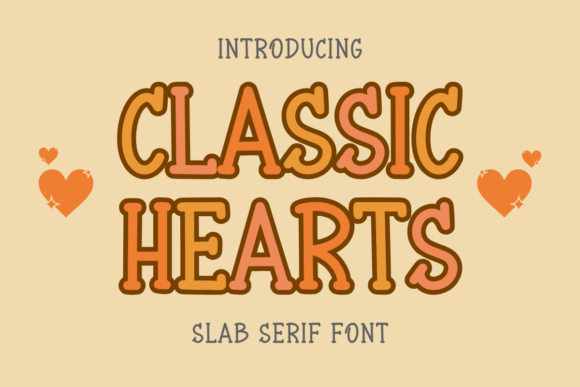
Classic Hearts: A Versatile Font for Everyday Creativity
If you're looking for a font that brings warmth and charm to your designs, Classic Hearts might just be the one. This cute, handwritten slab serif font is more than just a pretty face—it’s a practical tool for anyone who wants to add a personal touch to their projects. From greeting cards to digital presentations, Classic Hearts has a unique ability to make any text feel both friendly and professional.
What Makes Classic Hearts Stand Out?
Classic Hearts combines two appealing elements—handwritten style and slab serif structure. The result is a font that feels both playful and polished. Each character has subtle variations in stroke width and spacing, which gives it a natural, hand-drawn look while maintaining readability. It's perfect for those who want to avoid generic sans-serif fonts but still crave something approachable and easy on the eyes.
Handwritten Slab Serif: A Rare Combination
You don’t often see a blend of handwritten flair and slab serifs in one font. Slab serifs are usually reserved for bold, traditional typography, while handwritten fonts tend to lean casual or cursive. Classic Hearts bridges this gap beautifully, offering the best of both worlds. The blocky base with soft, rounded edges makes it ideal for use across multiple platforms without losing its character.
Real-World Use Cases for Classic Hearts
- Greeting Cards: Whether you're making birthday cards, thank-you notes, or holiday greetings, Classic Hearts adds a warm, heartfelt touch. Its design evokes sincerity and care, making it an excellent choice for anything meant to convey emotion.
- Invitations and Announcements: Wedding invitations, baby showers, or graduation announcements all benefit from a font that feels personal yet elegant. Classic Hearts can help set the tone for these special events without being too formal or too whimsical.
- Children’s Projects: Teachers and parents often seek fonts that are engaging for kids but still legible. Classic Hearts works well for classroom posters, storybooks, or even educational materials that need a gentle, inviting presence.
- Branding and Marketing: For businesses targeting a cozy or nostalgic audience, like boutique shops or wellness brands, this font can become part of the visual identity. It adds personality to logos, packaging, and promotional content.
- Digital Design and Social Media: In today’s fast-paced online world, standing out is key. Classic Hearts can give your social media posts, blog headers, or email newsletters a fresh and relatable vibe that resonates with audiences.
Examples of Creative Applications
Let’s say you’re designing a Mother’s Day card. You could pair Classic Hearts with floral illustrations and pastel colors to create a sweet, homemade feel. Or imagine using it for a product label at a local bakery. The font complements rustic aesthetics and handwritten menus, adding a sense of authenticity and charm.
Another scenario might involve creating a presentation for a creative team meeting. Instead of using standard fonts like Arial or Helvetica, switching to Classic Hearts can inject some personality into your slides. Just keep the amount of text limited to maintain clarity and let the font shine where it matters most.
Who Can Benefit from Using Classic Hearts?
This font isn’t just for designers or artists. Anyone who values creativity in their communication can find a place for it. Here are a few different user profiles who might appreciate Classic Hearts:
- Craft Enthusiasts: If you love DIY projects, scrapbooking, or handmade gifts, Classic Hearts is a go-to option. Its charm enhances any tactile project, especially when paired with vintage-style patterns or watercolor textures.
- Small Business Owners: Think about how you present your brand. A small café owner might use it for signage or menu boards to evoke a home-cooked meal vibe. Similarly, a boutique clothing store can use it for window displays to stand out from the competition.
- Teachers and Educators: Educational materials don’t always have to be boring. With Classic Hearts, teachers can design fun worksheets, classroom decorations, or interactive learning tools that grab students’ attention and spark interest.
- Event Planners: Invitations, signage, and programs for events like weddings, birthdays, or corporate retreats can all be elevated with this font. It conveys warmth and professionalism, striking the right balance for any occasion.
- Content Creators: Bloggers, YouTubers, and Instagrammers can use it for headings, captions, or branded templates. The font helps create a consistent aesthetic that viewers will come to recognize and associate with your content.
Industry-Specific Uses
Depending on your field, the applications for Classic Hearts can vary:
- Healthcare: A pediatrician’s office might use it for informational brochures or waiting room décor. The font feels comforting and non-threatening, which is great for working with children and families.
- Education: As mentioned earlier, it’s perfect for student-friendly materials. But it also works well in e-learning platforms for activity titles or motivational quotes.
- Nonprofits and Charities: Organizations focused on community outreach or emotional causes can use it to craft messages that resonate on a human level. Donation appeals, event flyers, and awareness campaigns gain an extra layer of sincerity with this font.
- Personal Branding: Coaches, consultants, and influencers can incorporate Classic Hearts into their branding assets to appear more personable and trustworthy. It subtly suggests a connection between the creator and the audience.
- Readability in Context: Because it’s a handwritten font, it may not be suitable for large blocks of text. Use it for short phrases, headlines, or accents rather than body copy.
- Pairing with Other Fonts: To maintain visual balance, consider pairing it with a clean sans-serif or minimalist serif font for secondary text. This ensures your message remains clear while keeping the design interesting.
- Color Contrast: The font looks best when placed against light or neutral backgrounds. Darker shades or high-contrast combinations can enhance legibility, especially in print or web-based formats.
- Printing vs. Digital Display: While it performs well on screens, printing requires attention to detail. Test how it looks at different sizes and resolutions to ensure it maintains its charm in physical form.
- Create a custom thank-you note for a client or customer.
- Design a seasonal banner for your website or newsletter.
- Use it for labeling jars or containers in a kitchen or craft space.
- Add it to a printable calendar for a more personalized look.
- Make a motivational poster for your workspace or home.
Things to Consider Before Using Classic Hearts
While Classic Hearts is incredibly versatile, there are a few things to keep in mind before applying it to your work:
Strengths and Limitations
The biggest strength of Classic Hearts is its versatility. It adapts well to both personal and professional settings, and its handwriting-like appearance brings a human element to digital projects. It also has good character spacing and kerning, which makes it easier to read than many other script or decorative fonts.
However, it does have some limitations. Since it mimics handwriting, it may not suit every design style. For example, if you're going for a sleek, modern look, this font might clash with the overall theme. Additionally, as with most decorative fonts, overuse can lead to cluttered visuals. Use it sparingly to highlight important elements rather than overwhelming the layout.
Getting Started with Classic Hearts
Whether you're a seasoned designer or someone who dabbles in creative projects, Classic Hearts can quickly become a favorite. Start by downloading the font from a trusted source and experimenting with it in different contexts. Try it out in a greeting card template, then test it in a PowerPoint slide or a website header. You’ll likely find that it works surprisingly well across various mediums.
Once you get comfortable with it, consider combining it with other design elements. Maybe add some subtle doodles or icons around the text to reinforce the friendly, handcrafted vibe. You can also adjust the weight and size slightly to fit the tone of your project—lighter weights for delicate touches, bolder ones for emphasis.
Where to Use It Next
Still unsure how to apply Classic Hearts? Here are a few quick ideas to spark inspiration:
Remember, the best way to discover what Classic Hearts can do is to start using it. Don’t worry about perfection—this font thrives on imperfection and individuality. Let it speak for itself in your next creative endeavor.
Why Choose Classic Hearts?
In a sea of fonts, finding one that truly stands out can be challenging. Classic Hearts offers a fresh take on handwritten typography, blending the comfort of a personal note with the stability of slab serif design. It’s not just cute; it’s functional and expressive. When used thoughtfully, it can elevate your work and connect with your audience in meaningful ways.
So whether you're planning a big event, putting together a small gift, or simply wanting to refresh your design toolkit, Classic Hearts is worth a try. It might surprise you with how naturally it fits into your workflow and how much it enhances your message.